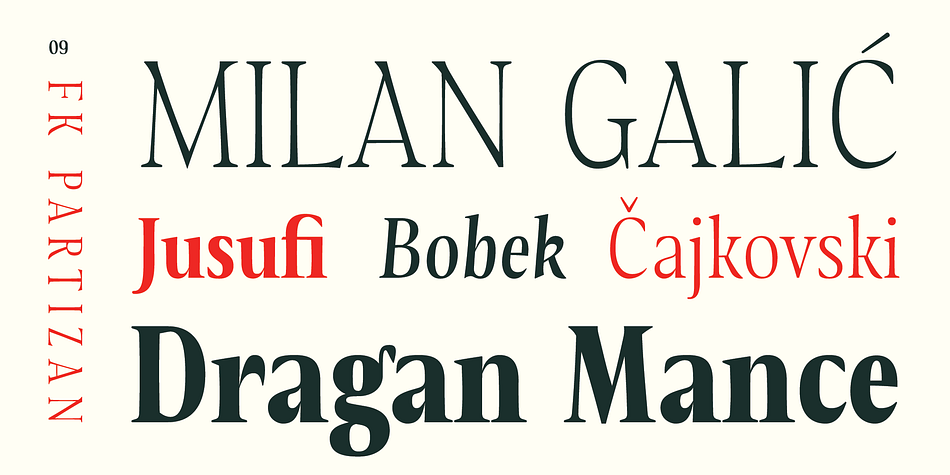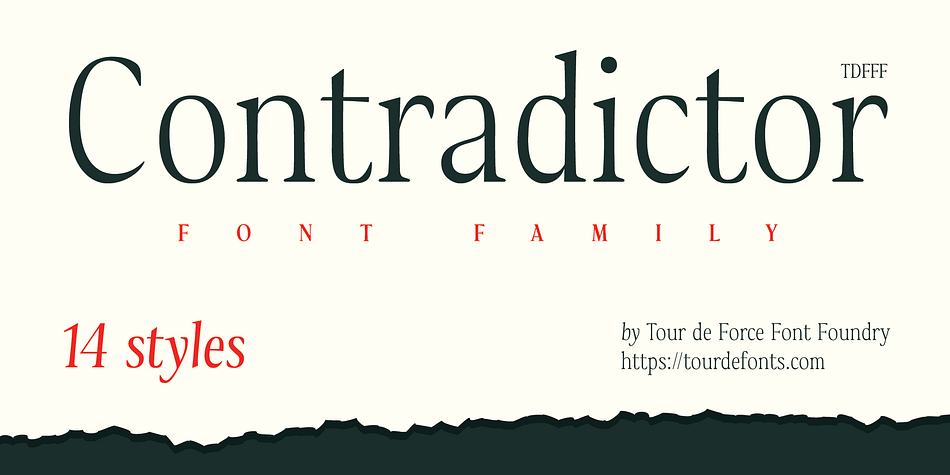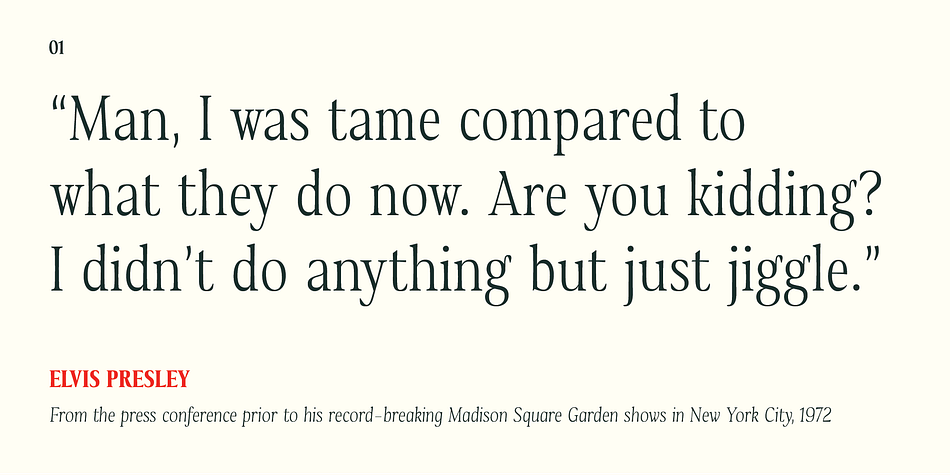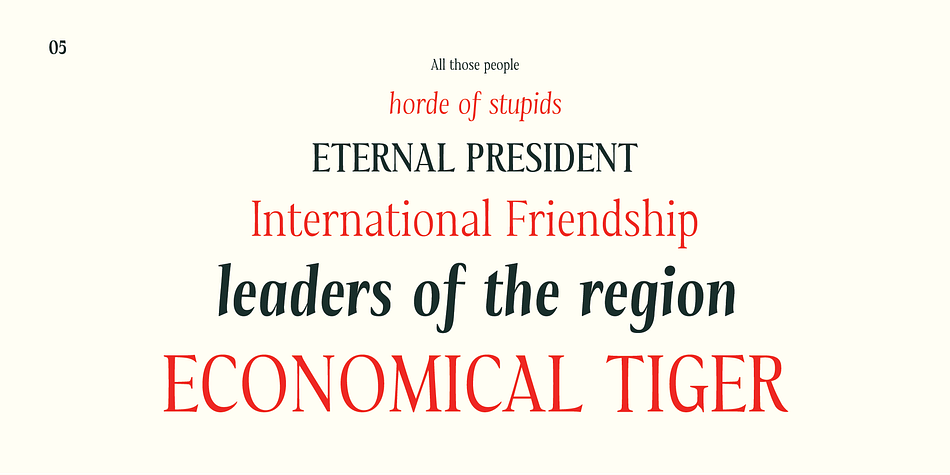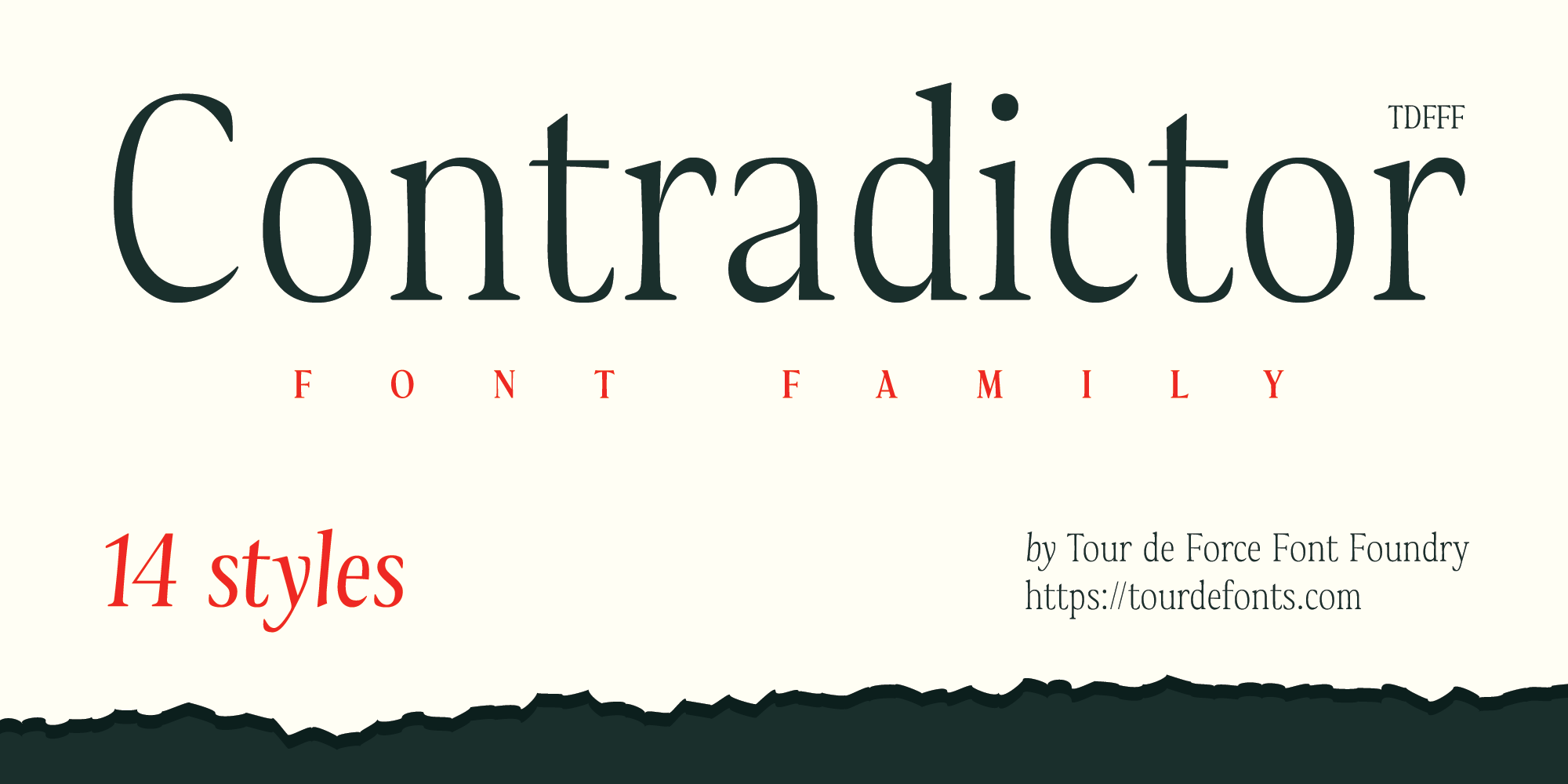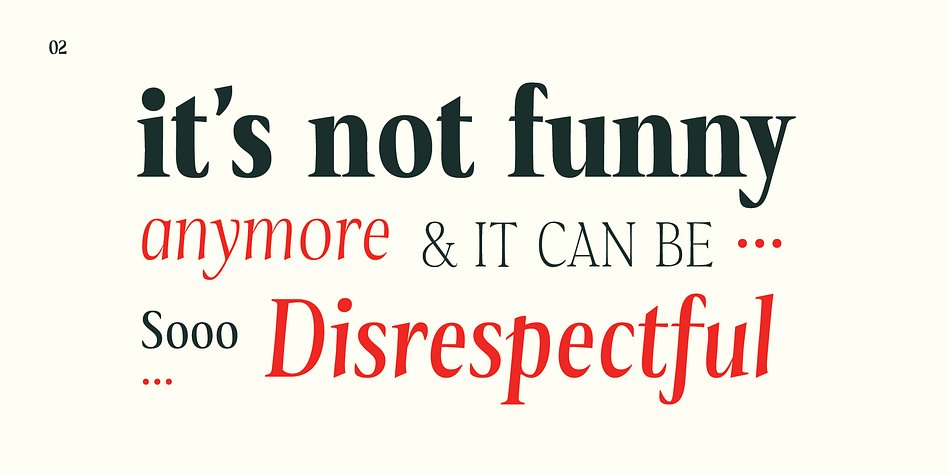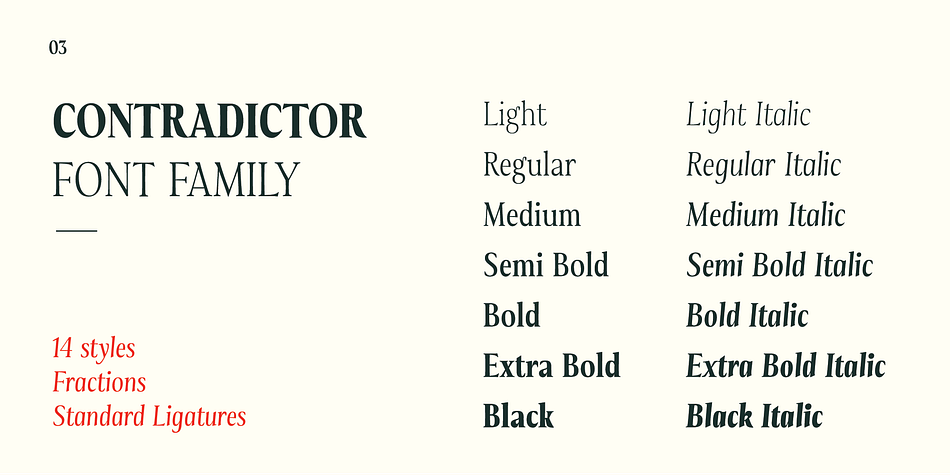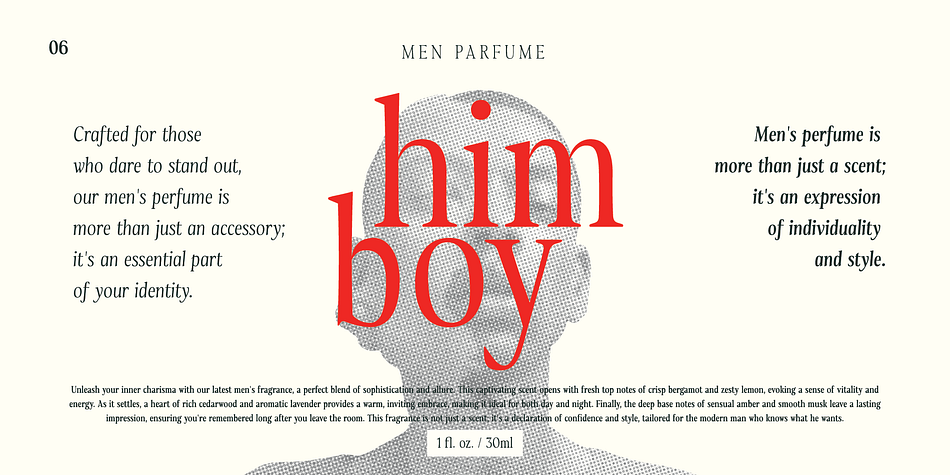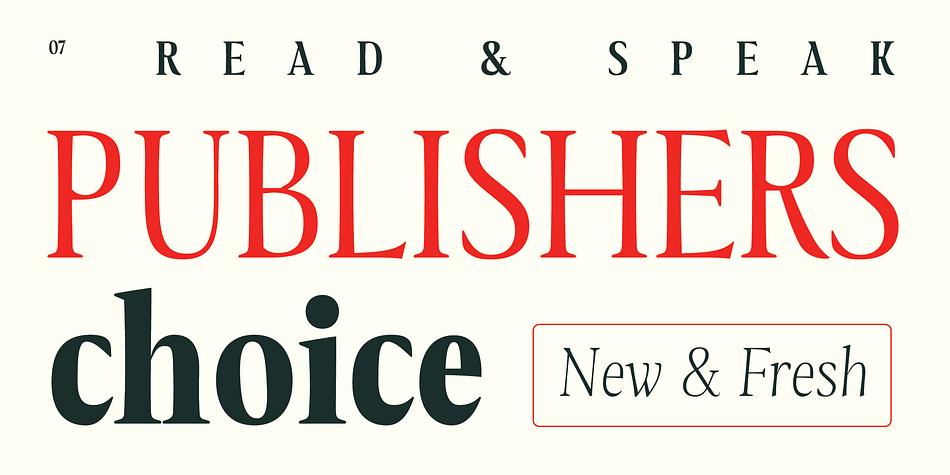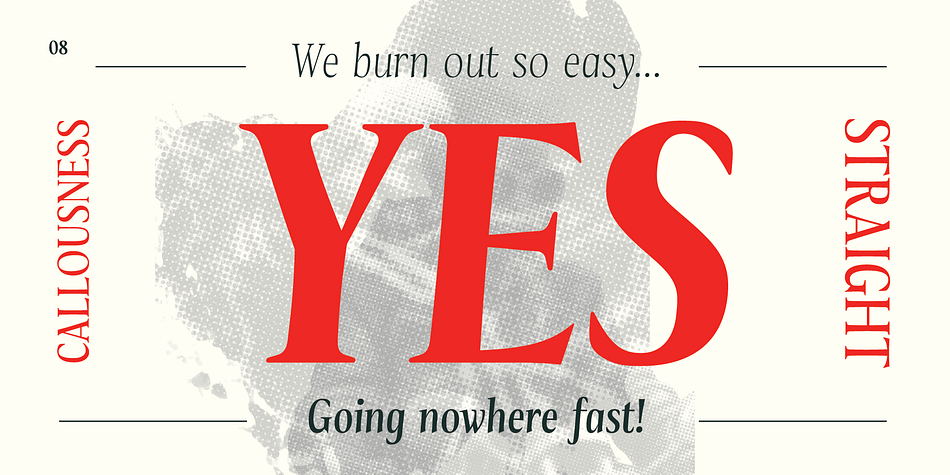
Contradictor
Designed by Dusan Jelesijevic, Contradictor is a serif font family. This typeface has fourteen styles and was published by Tour de Force Font Foundry.
Contradictor is modern serif font family available in 14 styles.
Design of Contradictor combines several elements such as elegance, tall x-height, high contrast, slightly condensed look and true Italic. Charming details, some unique shapes and very small slanted angle of Italics make Contradictor distinctive font family.
Imagined as font family for publications, longer text or as webfont, Contradictor looks powerful in bigger sizes as well – for titles, headlines, product names, outside graphic or posters.
Contradictor comes with Fractions and Standard Ligatures as OpenType Features.